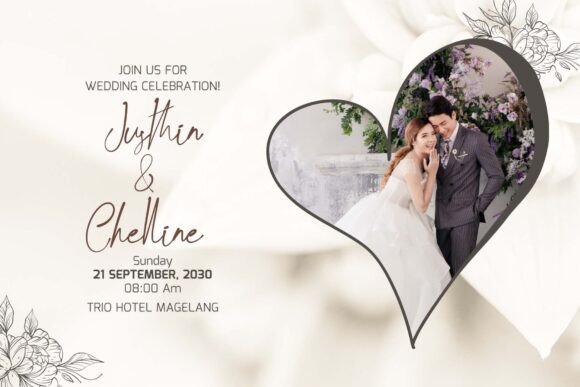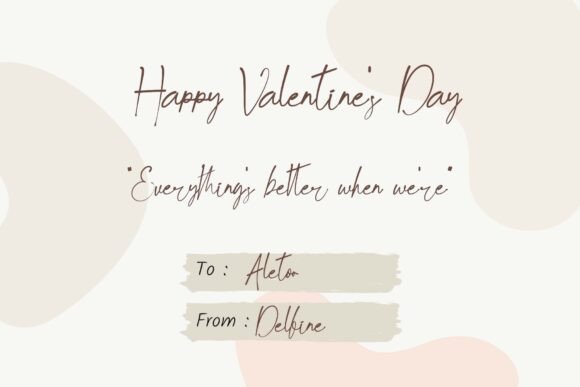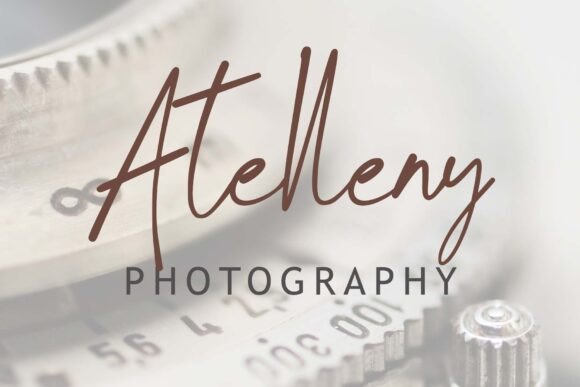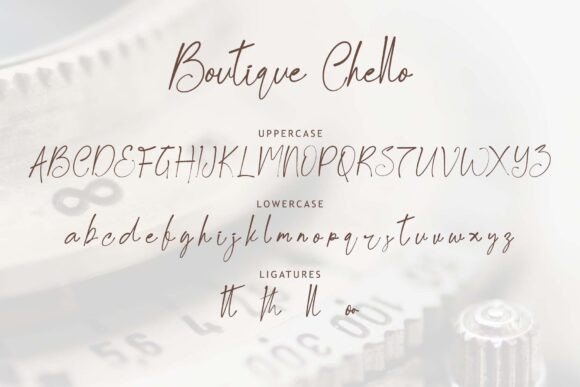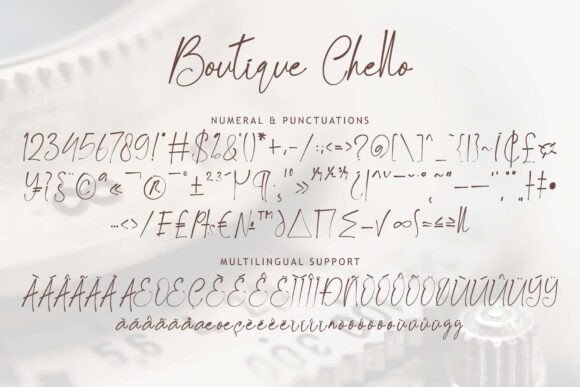
Introduction to Boutique Chello Font
“Boutique Chello” is a signature handwritten font.
It comes with capital letters, lowercase letters, signature, numbers, punctuation, and multilingual support Perfect for invitations, weddings, Christmas, winter, Valentine’s, birthdays, Thanksgiving, posters, summer, spring, and more.